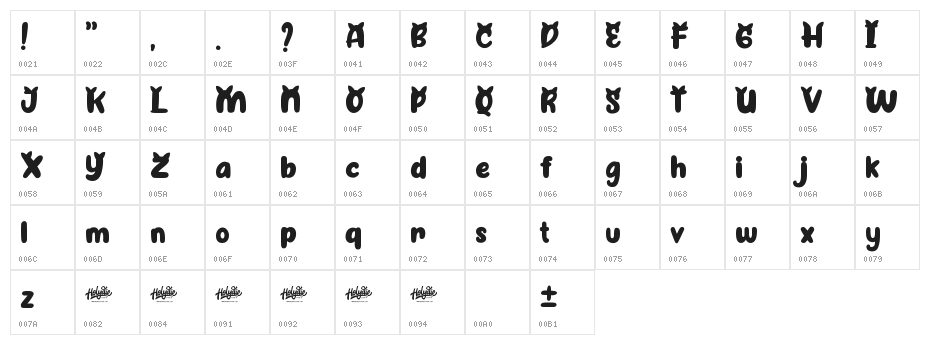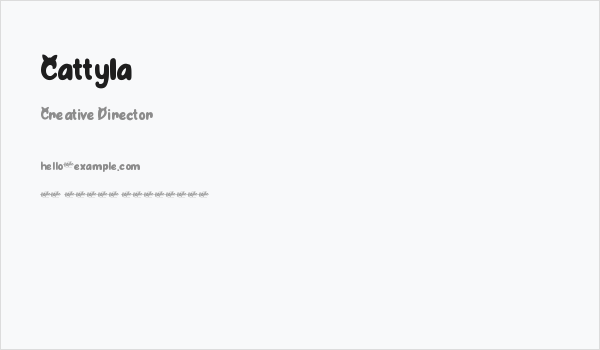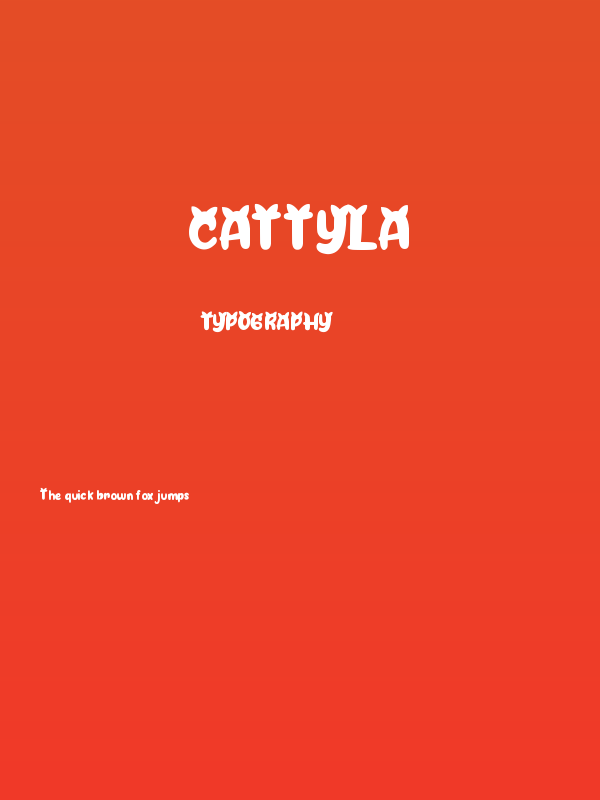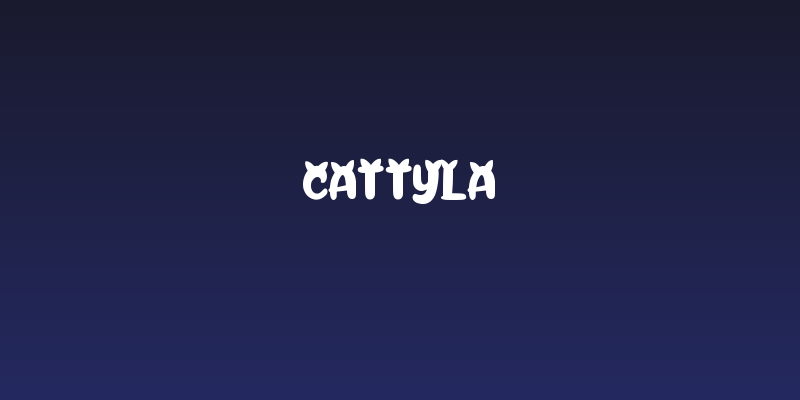
Cattyla Font
Cattyla Description
This playful and bold font features a whimsical, cartoonish style with rounded edges and a bubbly appearance. The characters are thick and have a consistent weight throughout, giving them a strong presence on the page. The font's unique personality is highlighted by its exaggerated curves and playful forms, making it ideal for creative and fun projects. Its distinct style is both eye-catching and memorable, perfect for designs that aim to stand out. The font maintains a consistent baseline, ensuring readability while still offering a touch of flair with its decorative elements.
Overall StylePlayful, Cartoonish
Proposed ProjectsIdeal for children's books, playful branding, party invitations, and creative posters.